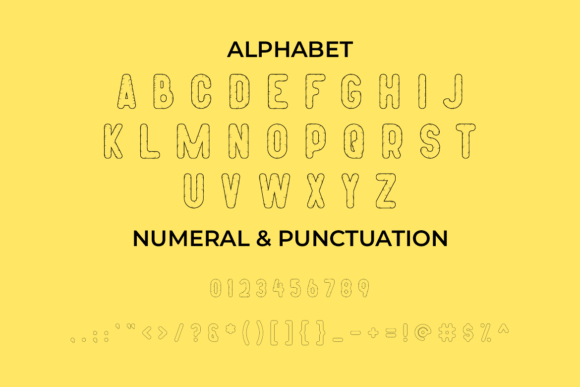
Introduction to Kendhel Font
You know that moment when you’re brainstorming ideas for your next creative project, and everything just clicks into place? You’re flipping through design resources, and suddenly, you stumble upon the perfect font. For many designers, that moment is what makes all the hard work worth it. And if you’re looking for a font that will elevate your designs to the next level, look no further than the Kendhel Font.
This fun and quirky display font is the perfect addition to any design project. With its trendy and stylish aesthetic, the Kendhel Font is sure to make a statement. Plus, with its transparent background, you can easily layer it over high-quality images or graphics, giving your designs a professional touch. And the best part? The Kendhel Font is available for free download, making it an invaluable resource for designers on a budget.
Key Features of Kendhel Font
- High-quality font design suitable for creative projects
- Transparent background, allowing for versatile use in various designs
- Includes a range of characters, including uppercase and lowercase letters, numbers, and punctuation marks
- Designed with a modern aesthetic, ideal for use in digital designs, print materials, and web applications
Honest Review: Kendhel Font
I recently stumbled upon the Kendhel Font and was excited to try it out for my creative project. As a designer, I’m always on the lookout for high-quality design resources that can elevate my work.
- The Kendhel Font has a unique and elegant design that makes it perfect for a wide range of creative projects.
- The transparent background option gives designers the flexibility to customize their designs without any limitations.
- The Kendhel Font may not be as polished as some of the paid fonts available in the market.
Overall, I’m impressed with the Kendhel Font and would recommend it to designers who are looking for a free and high-quality design resource for their creative projects.
While it has its limitations, I think the Kendhel Font is a great addition to any designer’s toolkit, especially for personal or small-scale projects.
Tips for Getting the Most Out of Kendhel Font
Experiment with different font sizes and styles to create visually appealing designs. Use the Kendhel Font in combination with other design elements to create a cohesive look. Consider using the font in conjunction with a transparent background to create a modern and sleek design.
Common Use Cases for Kendhel Font
The Kendhel Font is ideal for creative projects such as graphic design, branding, and marketing materials. It can also be used for digital products, presentations, and documents where a high quality font is required.